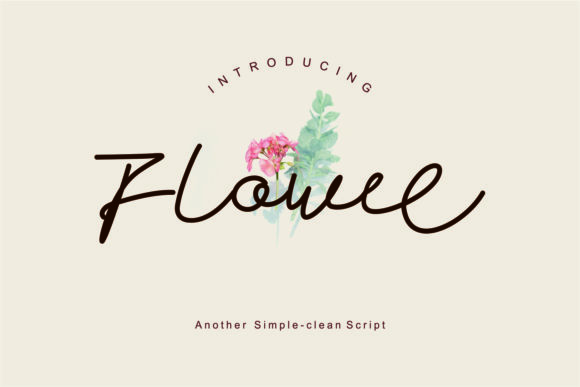
Introducing Flowee Font, the enchanting script font that will captivate your designs with its graceful flow and elegant charm. Designed with love by Typnco, Flowee is the perfect choice for creating captivating content that speaks to the heart.
Step into a world of creativity where your words dance across the page with Flowee's enchanting strokes. This exquisite font adds a touch of sophistication to your projects, making them stand out from the crowd. Whether you're designing wedding invitations that evoke timeless romance or crafting greeting cards that convey heartfelt messages, Flowee's versatility knows no bounds.
Unleash your inner artist and explore the endless possibilities that Flowee holds. Its flowing lines add a touch of elegance to logos, giving your brand a distinctive and memorable identity. Bring your social media posts to life with Flowee's playful spirit, engaging your audience with captivating visuals.
With Flowee Font, your designs will blossom into masterpieces, leaving a lasting impression on everyone who beholds them. Experience the joy of creating beautiful content with a font that speaks volumes without uttering a single word. Let Flowee be your creative muse, guiding you towards design excellence.